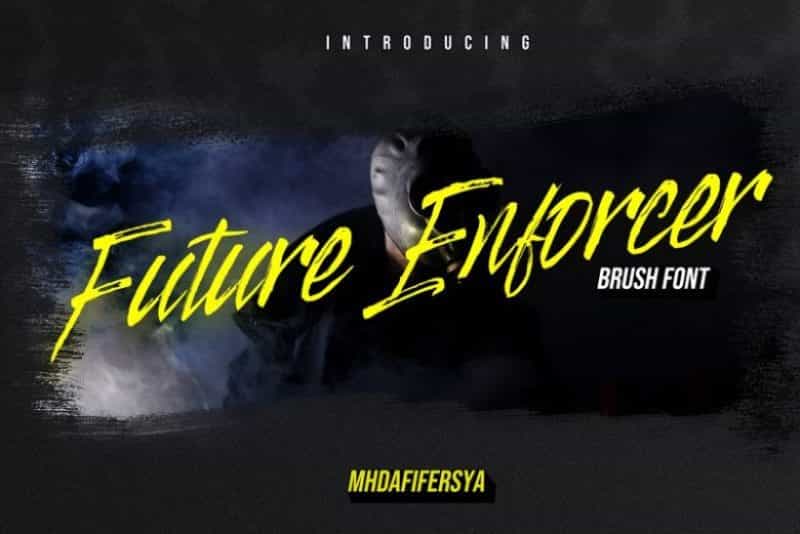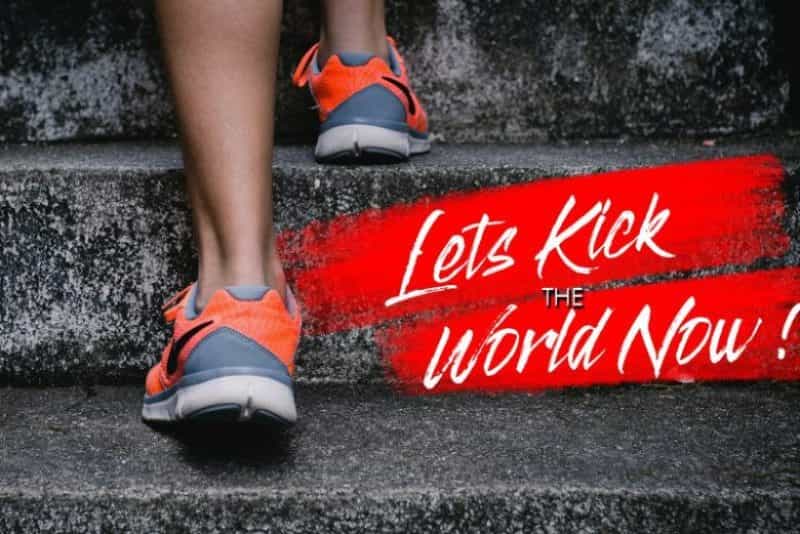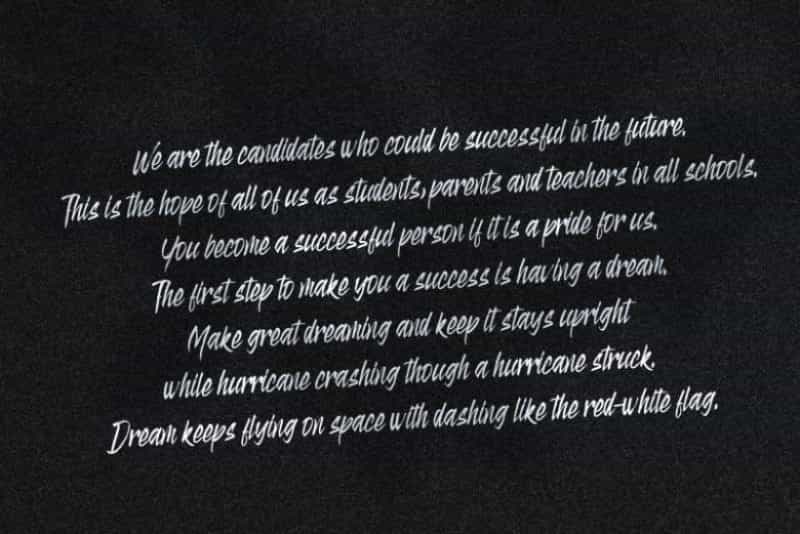
Future Enforcer Brush is a natural handbrused font, this font is suitable for logo, invitation, stationery, wedding designs, social media posts, advertisements, product packaging, product designs, label, photography, watermark, special events or anything. Displatter consists of all the upper case and lower case letters, multilingual characters, numerals and punctuations.